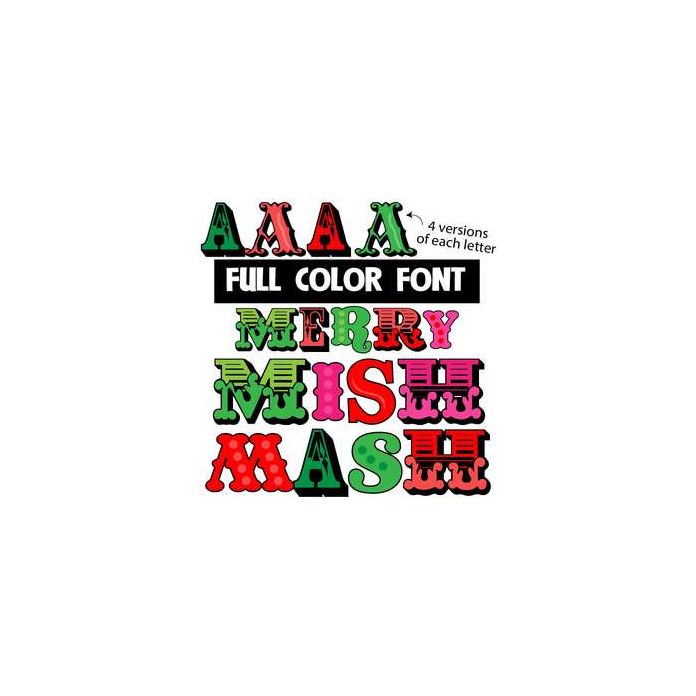
This full-color font features Christmas colored letters with an alt version for more options that you can access through your system's character map. This font works best for titles, displays, posters and more. Please note color fonts will show as black in non compatible programs. This font type is compatible with Silhouette Studio.